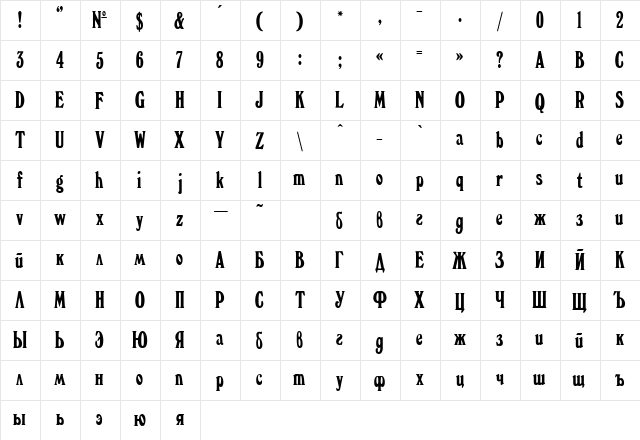
Windsor_DG Normal
Design Context for Windsor_DG Typeface
Windsor_DG is a composed and adaptable typeface that performs quietly and consistently across a wide range of design contexts.